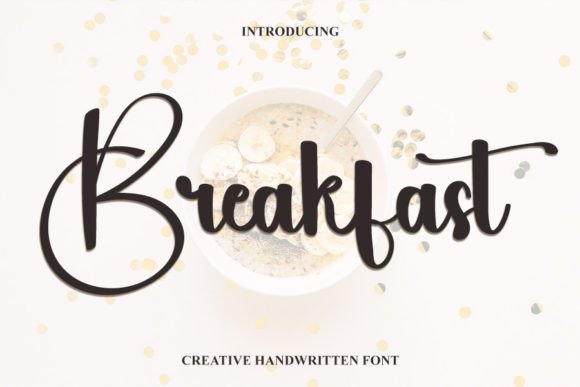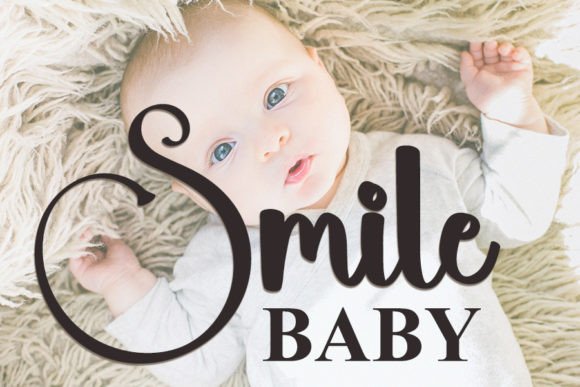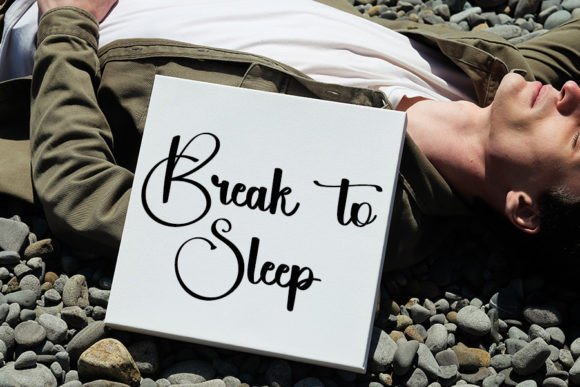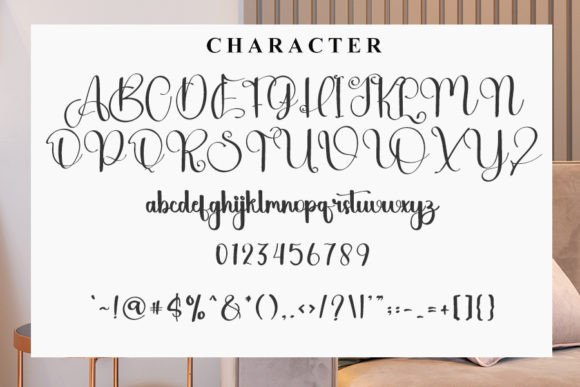
About Breakfast Font
“Breakfast” is a stylish handwritten font that brings a contemporary atmosphere and impeccable form to your projects. Inspired by timeless classic calligraphy, this font is carefully crafted with a balanced and varied design, aiming to enhance the beauty of your creations.
The contemporary vibes of Breakfast make it a versatile and stylish choice for a range of design applications. Whether you’re working on branding, advertising, digital designs, or print materials, this font adds a touch of refinement and modernity to your projects.
The balanced and varied nature of Breakfast ensures that it seamlessly adapts to different design contexts. Its handwritten style, influenced by timeless classic calligraphy, imparts an authentic and personalized feel to your work.
Incorporate Breakfast into your design toolkit to witness how it elevates the beauty of your projects. Let it be the font that adds a contemporary and stylish flair, making your designs stand out with impeccable form. Whether used for headlines, logos, or other design elements, Breakfast is designed to bring a perfect blend of modernity and classic elegance to your creative endeavors.